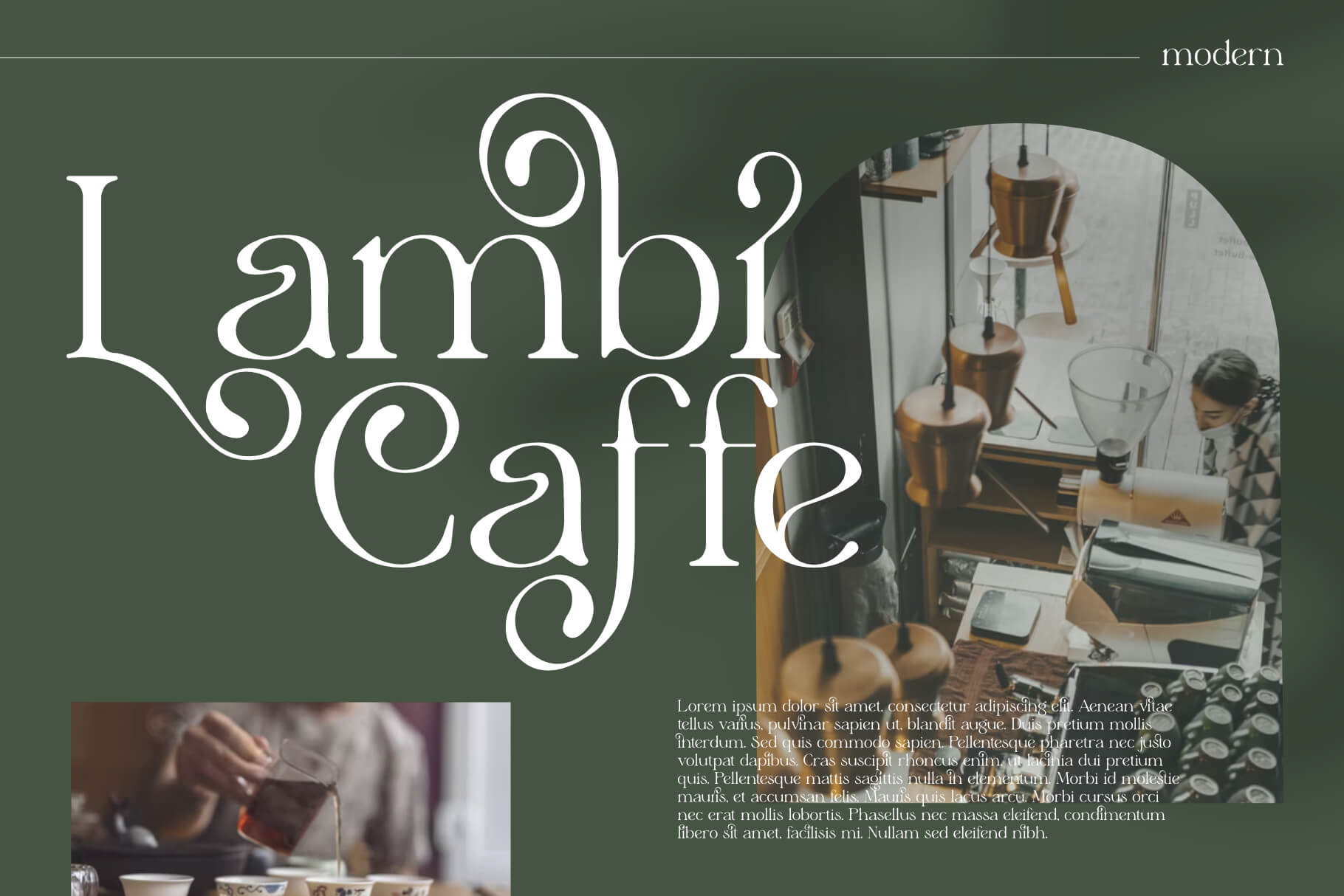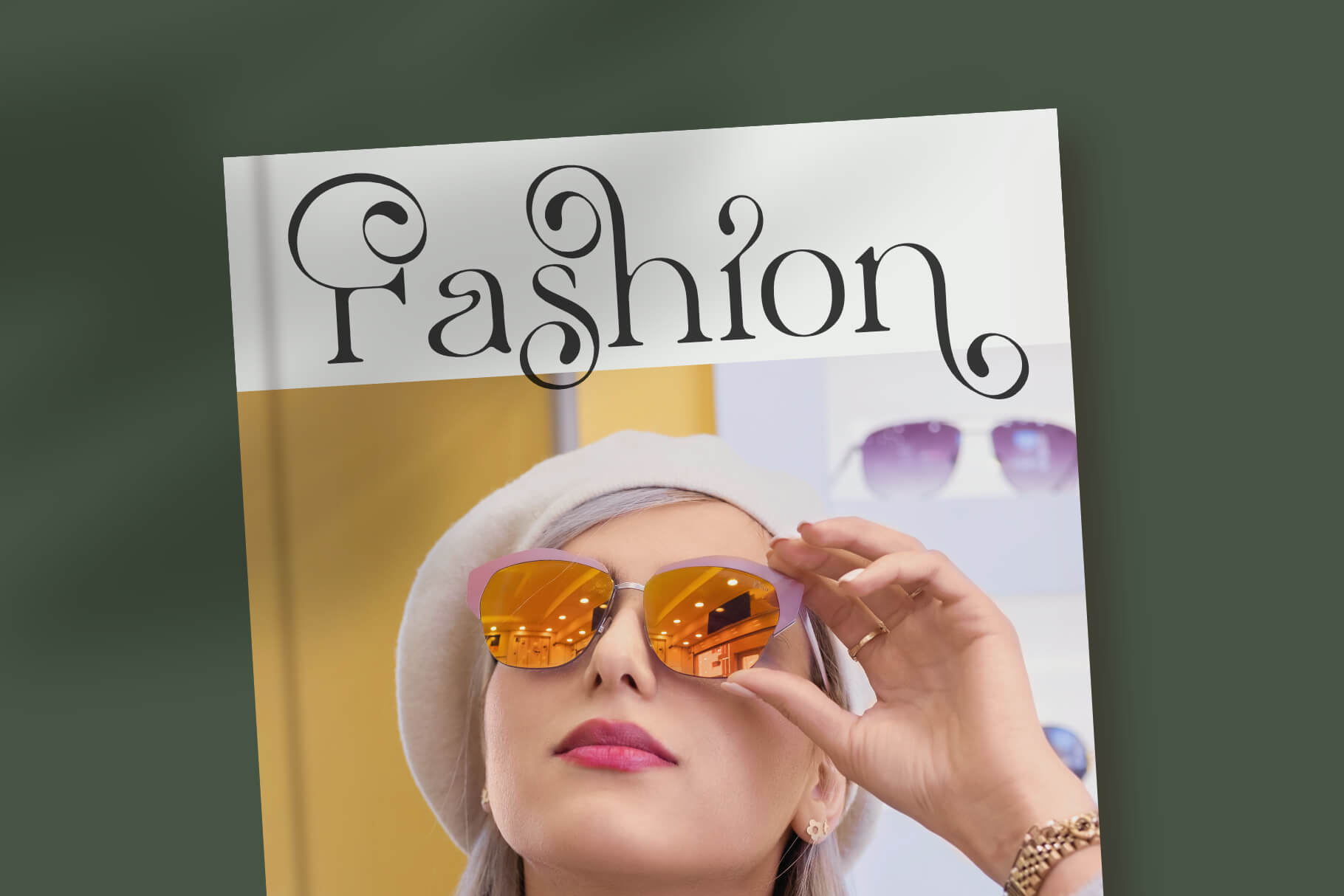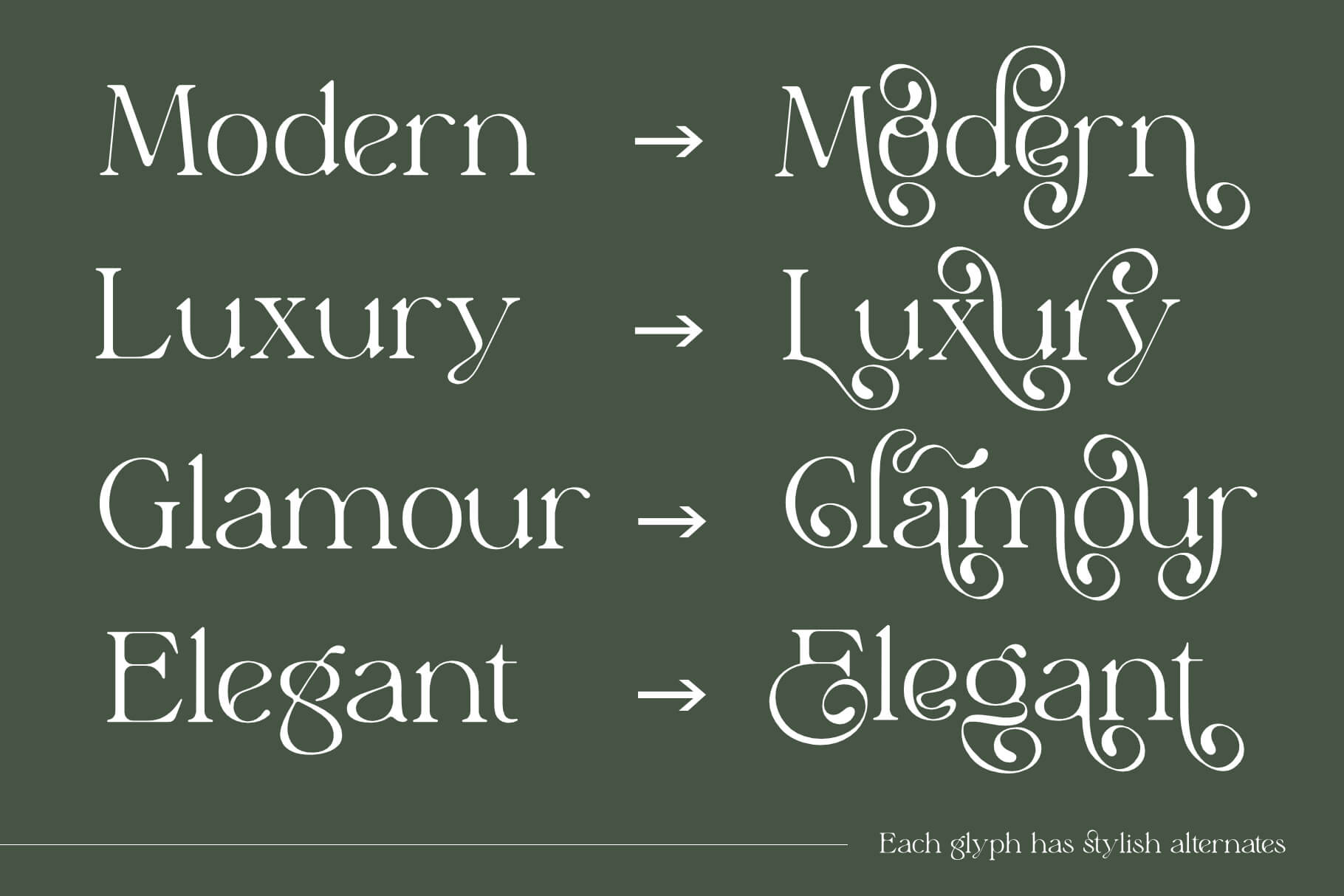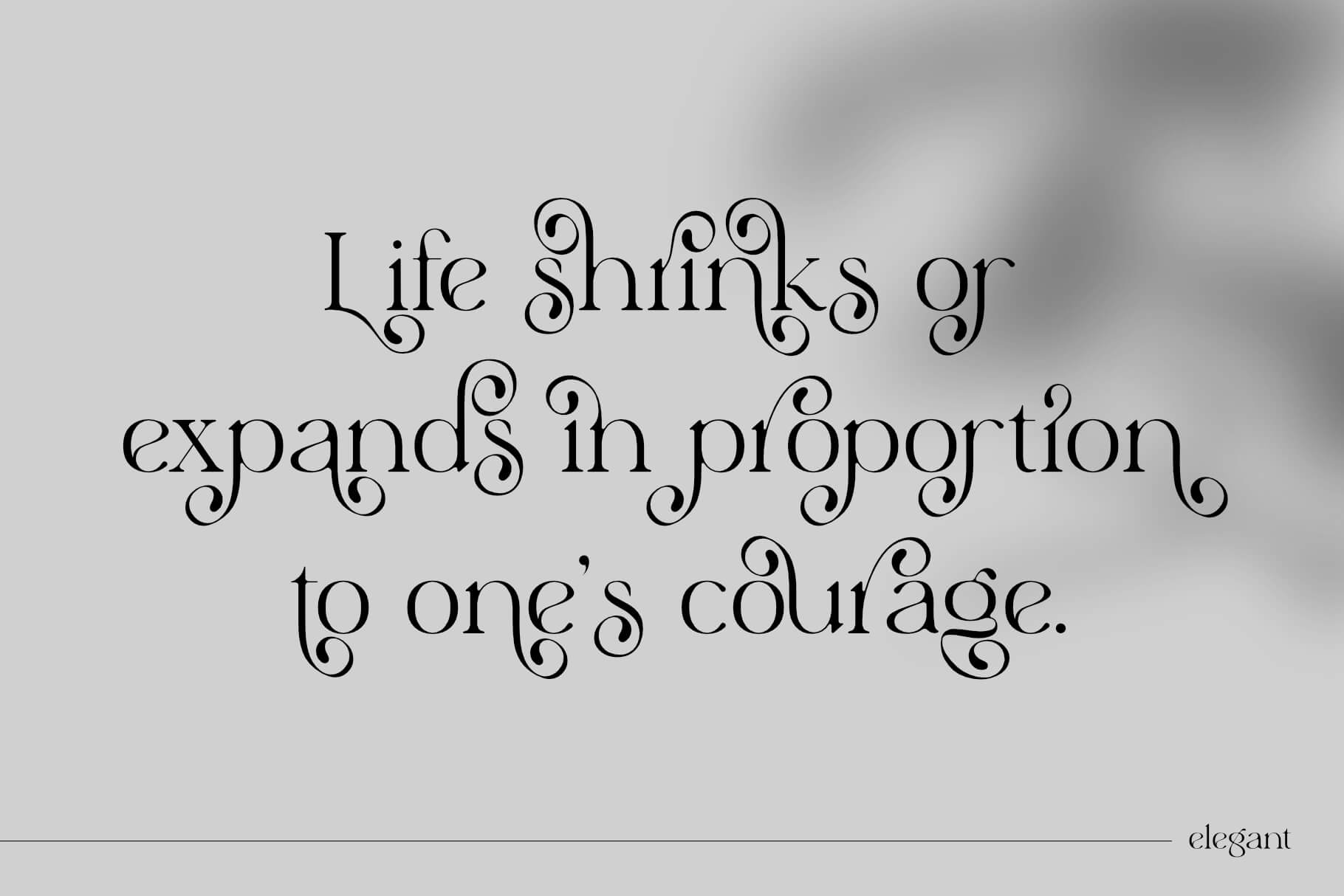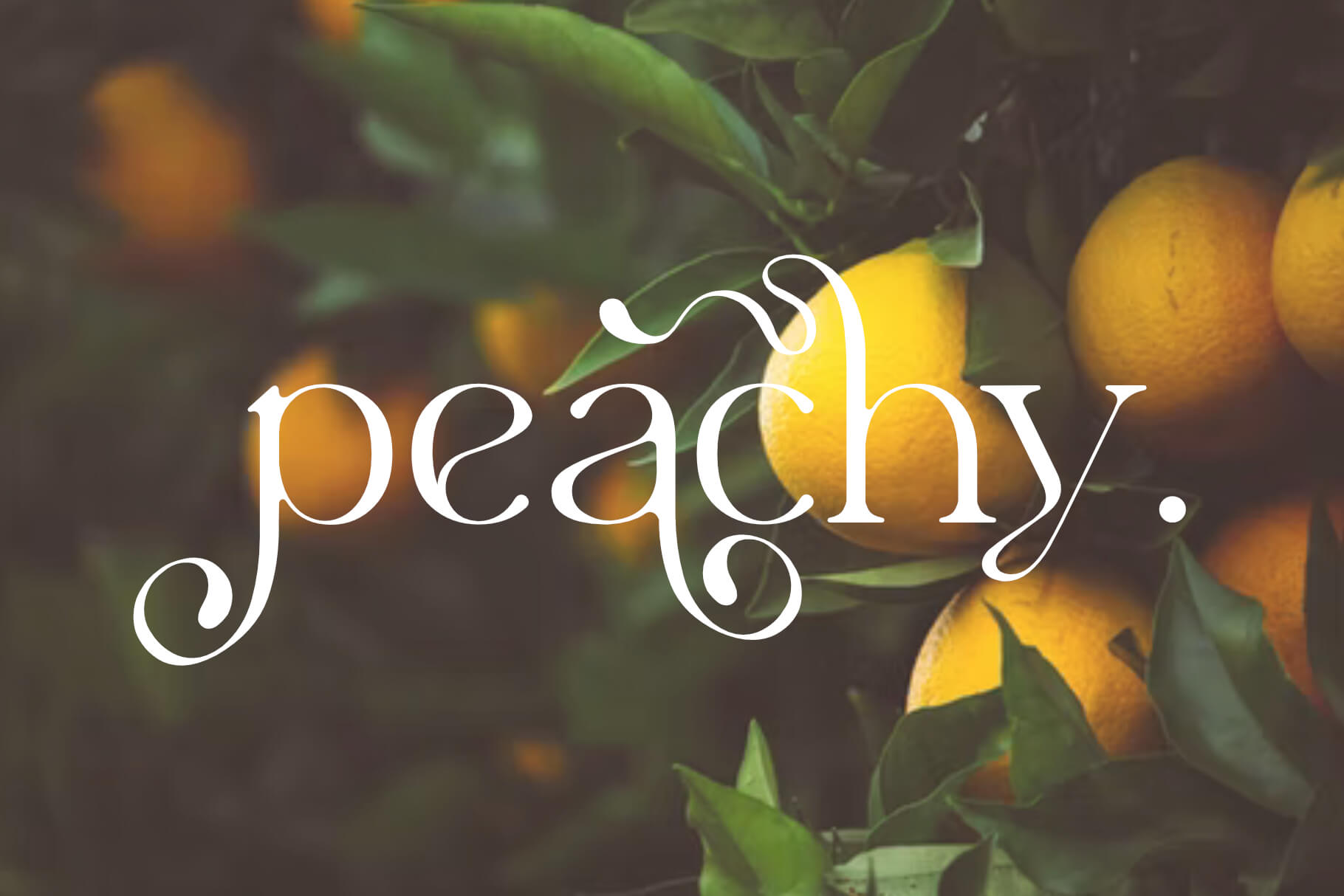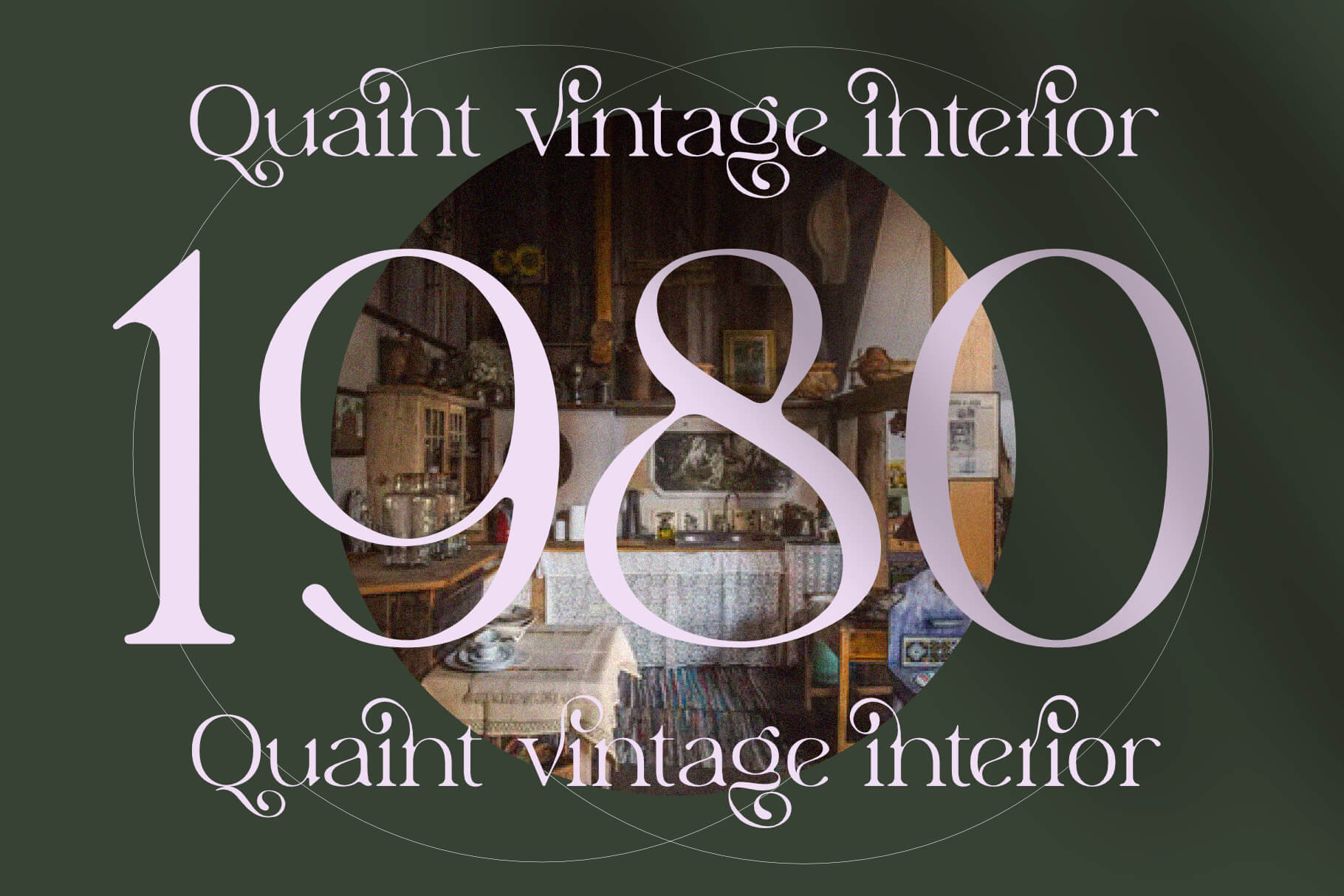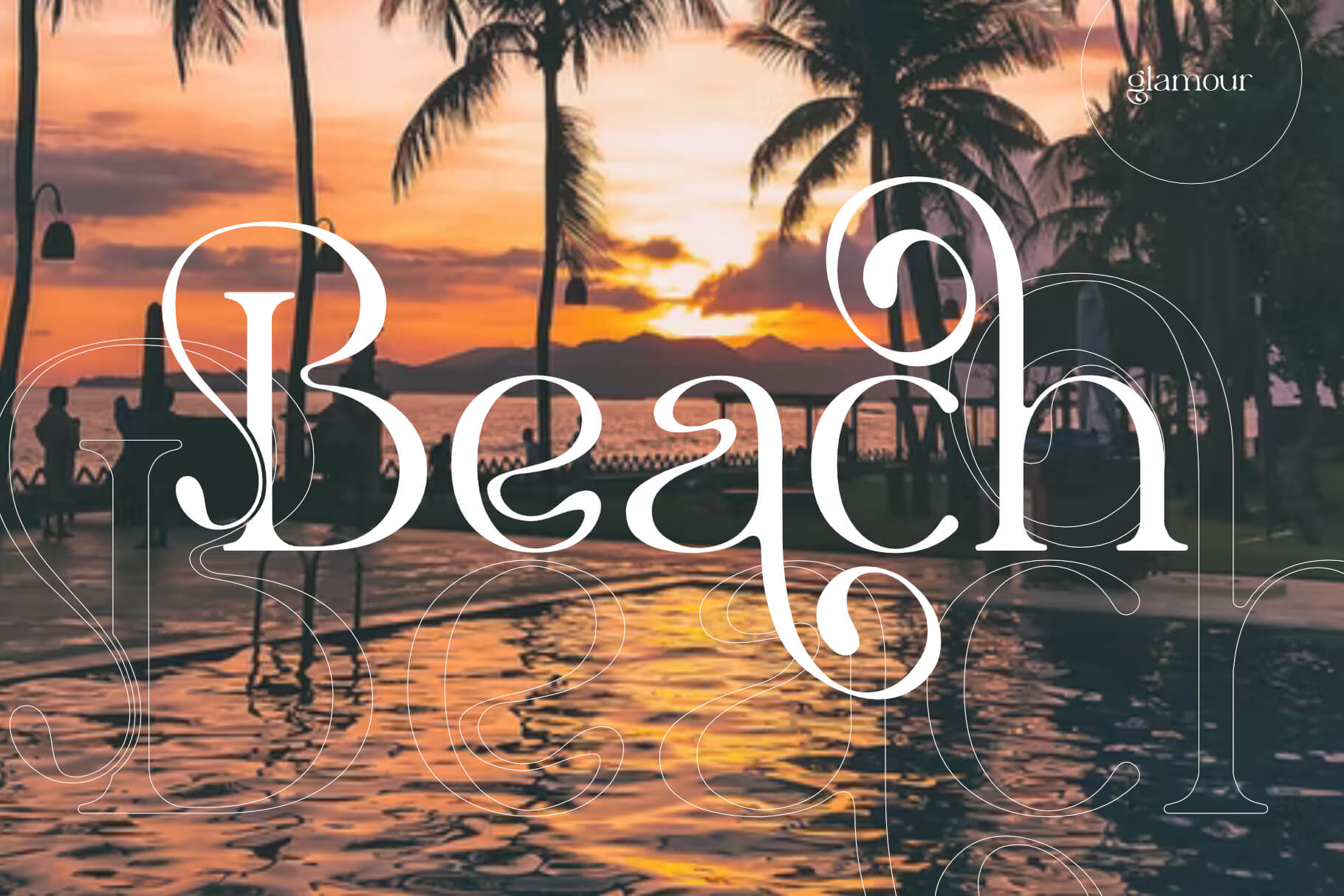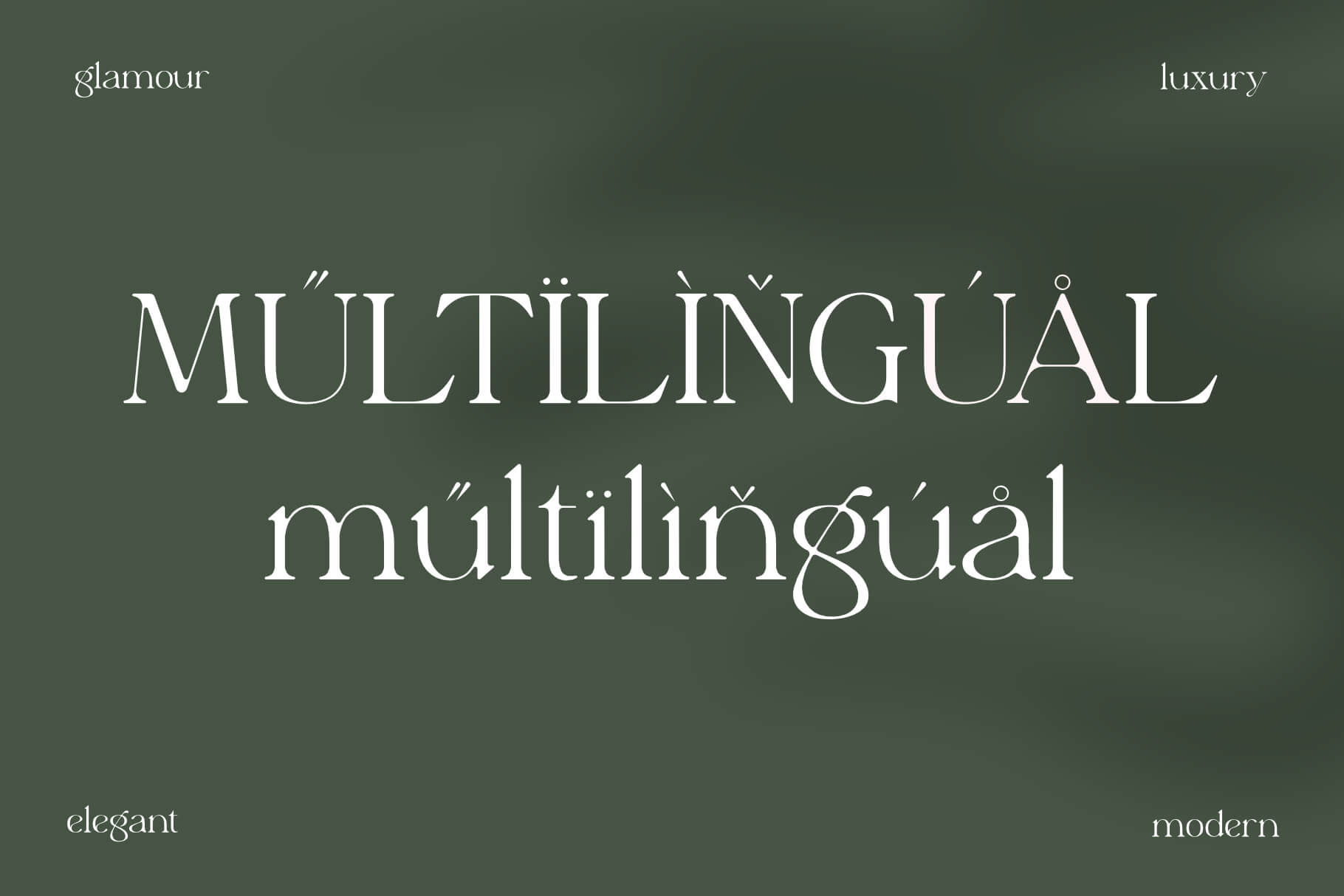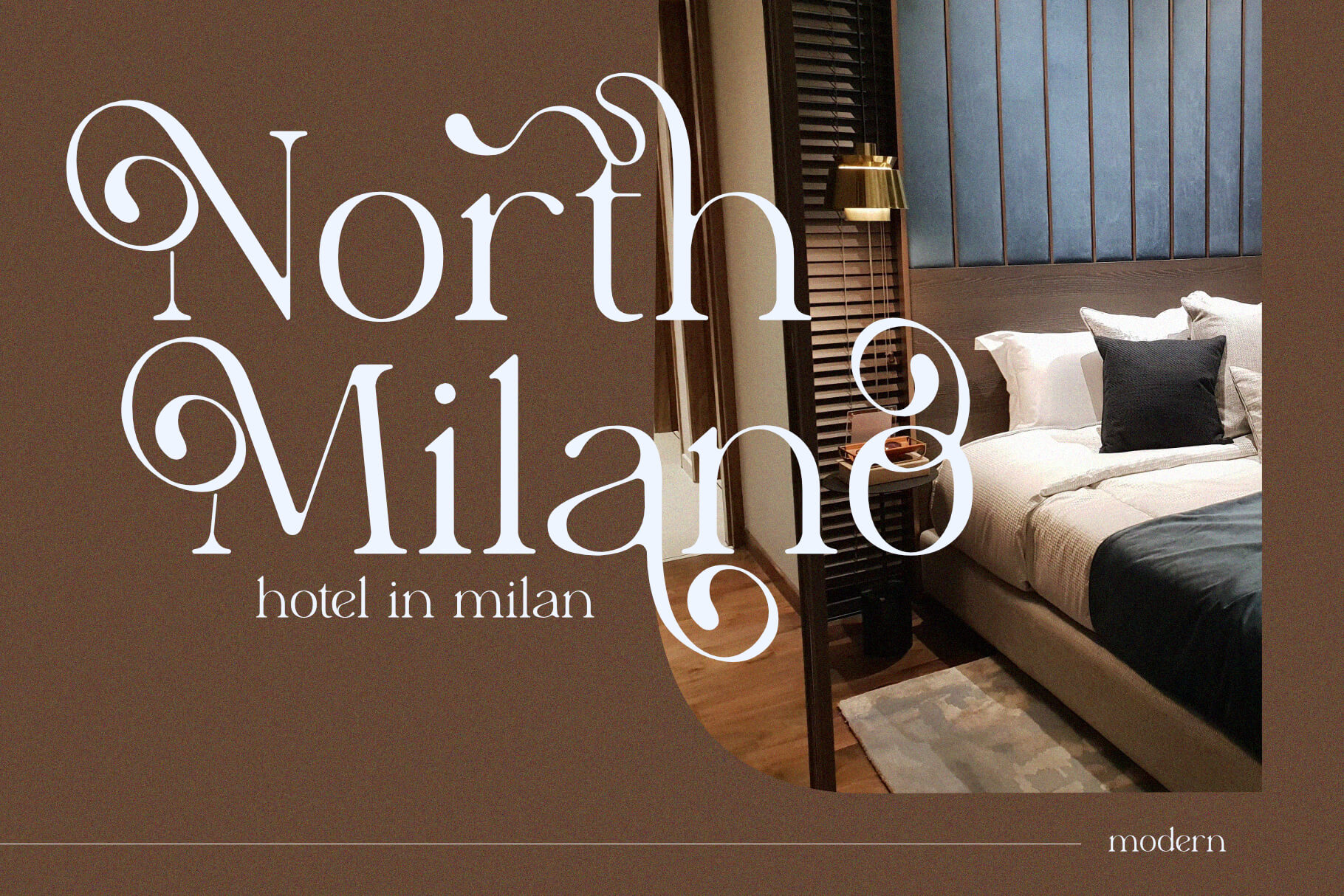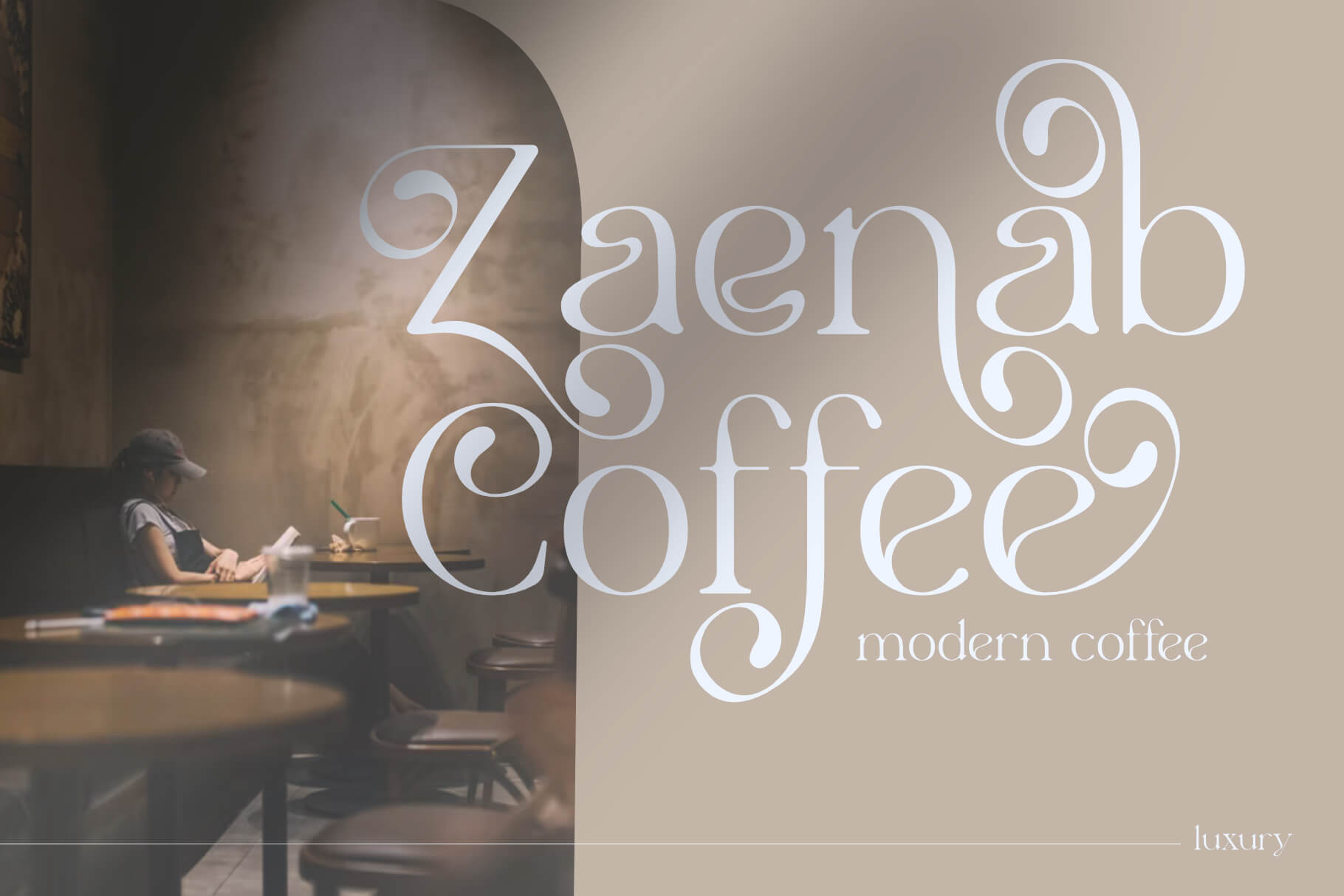
Elyaris is a classic, elegant and unique font that has lots of flowing stylish alternates and also uses ligatures to connect letters smoothly. Perfect for branding, logos, invitations, mastheads, and more. The Elyaris has 15 ligatures, 89 alternates for an upper and lower case as well as numbers and punctuation making it very versatile.
The Elyaris also includes the full set:
- Uppercase and Lowercase
- Multilingual Symbol
- Number
- Punctuation
- Ligature
- Alternative
- multilingual